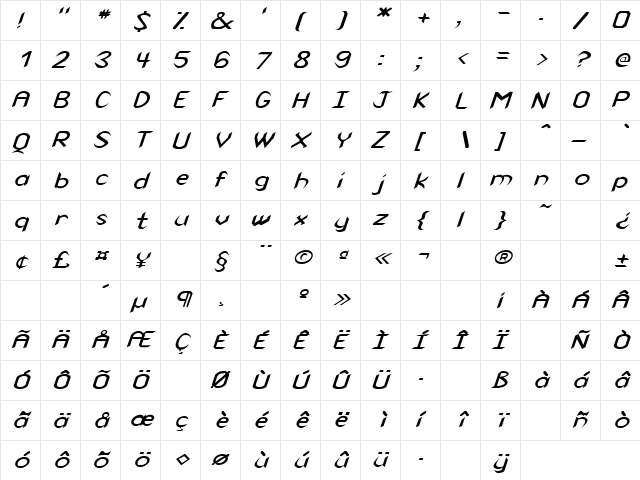
Nonfiction 3 Italic Font Preview
Nonfiction 3 Italic
Design Context for Nonfiction 3 Typeface
Nonfiction 3 takes a measured approach to typography — its balanced proportions and neutral character make it a reliable workhorse for both digital and print work. Its italic angle brings a sense of urgency and motion to the letterforms.